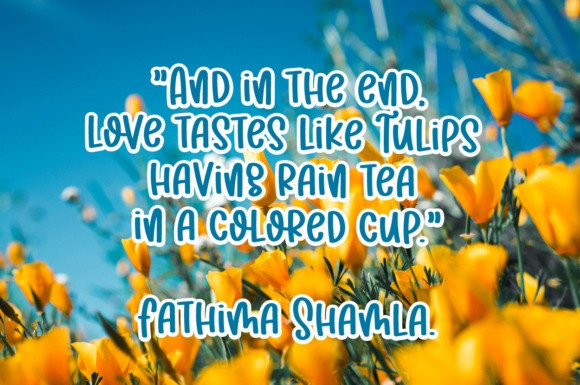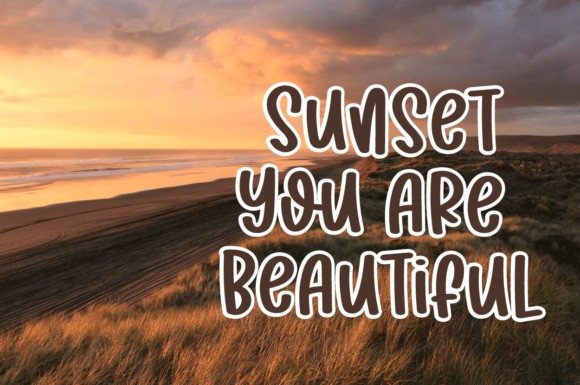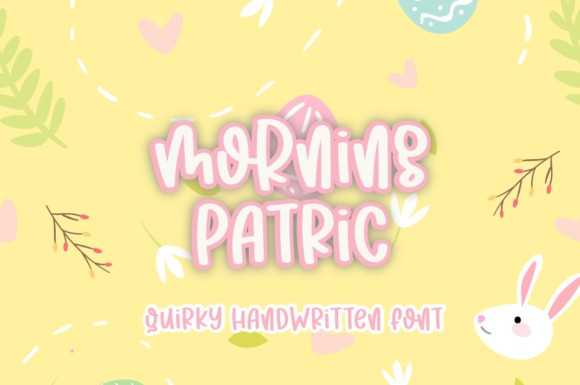
Morning Patric Font
Morning Patric Font is a simple and interesting handwritten font. Its friendly feel makes this font incredibly versatile, fitting a wide range of contexts. It looks stunning on thank you cards, quotes, greeting cards, logos, business cards, and every other design that needs an artistic touch. Add it to your creative ideas and notice how it makes them stand out!